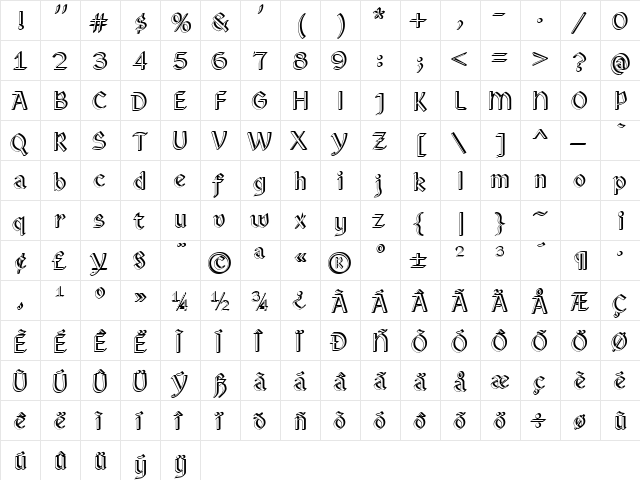
RundigsburgShadowRight Regular
Design Context for RundigsburgShadowRight Typeface
RundigsburgShadowRight is built around its visual character rather than neutral utility — its distinctive forms are designed to make an impression at display sizes.
Font Pairing: Pair with a clean neutral sans-serif for body copy to let RundigsburgShadowRight's character lead without overwhelming the composition.
Pro Tip: Use RundigsburgShadowRight exclusively at display sizes — it was designed to be seen, not read at length. Let a neutral companion handle body copy.